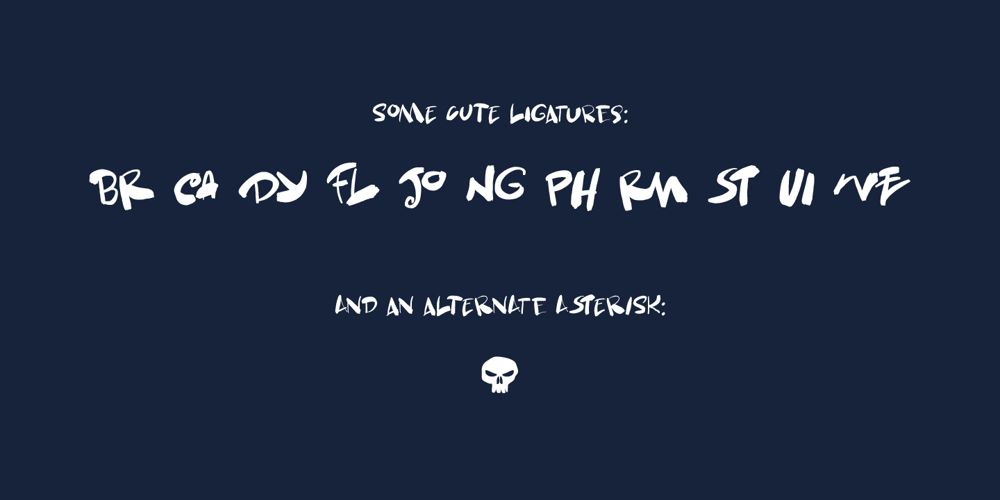
Skulduggery Font Family was designed by David Kerkhoff and published by Hanoded. Skulduggery contains 2 styles and family package options. I was playing around with some brushes and ink, and out came Skulduggery. Use it for any project you can apply the term ‘skulduggery’ to. Or not. Whatever.